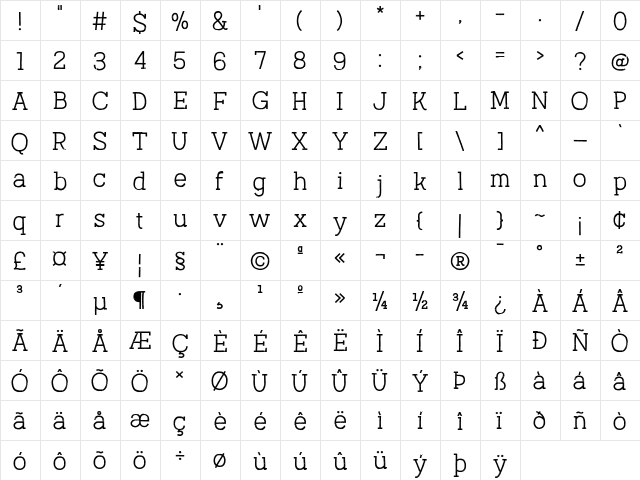
Austral Slab Rust Light
| Foundry | Julia Martinez Diana, Antipixel |
| Designer | Julia Martinez Diana, Antipixel |
Design Context for Austral Slab Typeface
Austral Slab combines the readability of serif typography with the visual weight of a slab construction, resulting in a typeface that feels both authoritative and approachable. The delicate stroke weight brings airiness and refinement to layouts.
Works well in editorial design, news publishing, impactful branding, and poster typography.
Pro Tip: Try Austral Slab set tight in headlines for a classic editorial feel. Its slab serifs create strong horizontal rhythm that anchors a page layout.